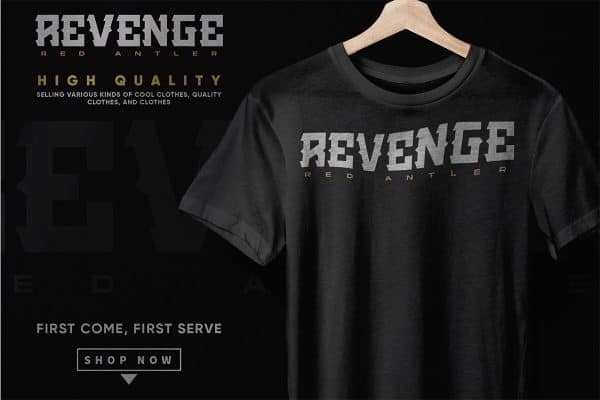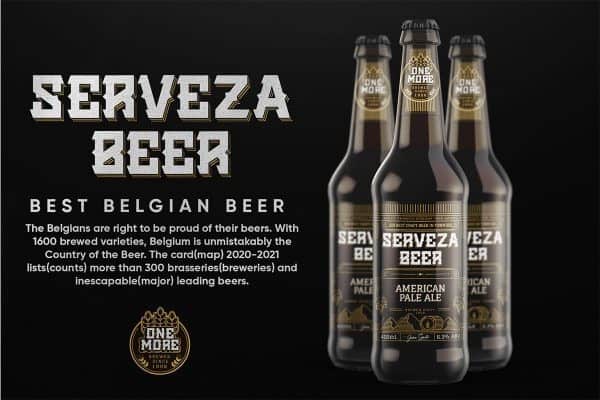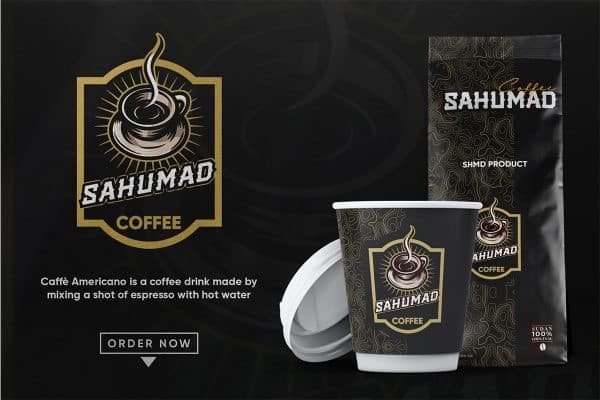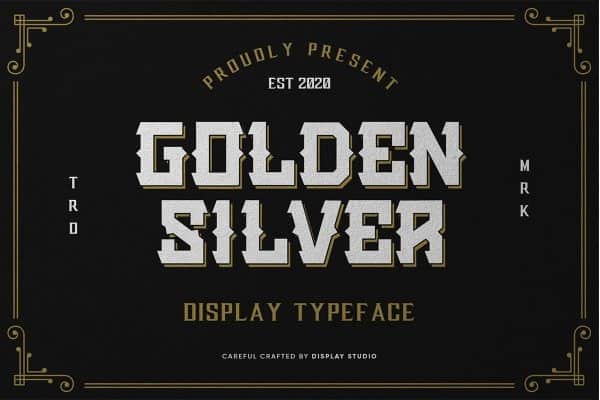
Golden Silver Display Font
Proudly present Golden Silver Display Font. This font is inspired by vintage designs with clean and rough lines. Made from font designer named Display Studio. Make the classic impression of this font stand out more.
Golden Silver Display Font is suitable for creating vintage designs such as logo posters, merchandise, clothing, brochures, business cards and others.